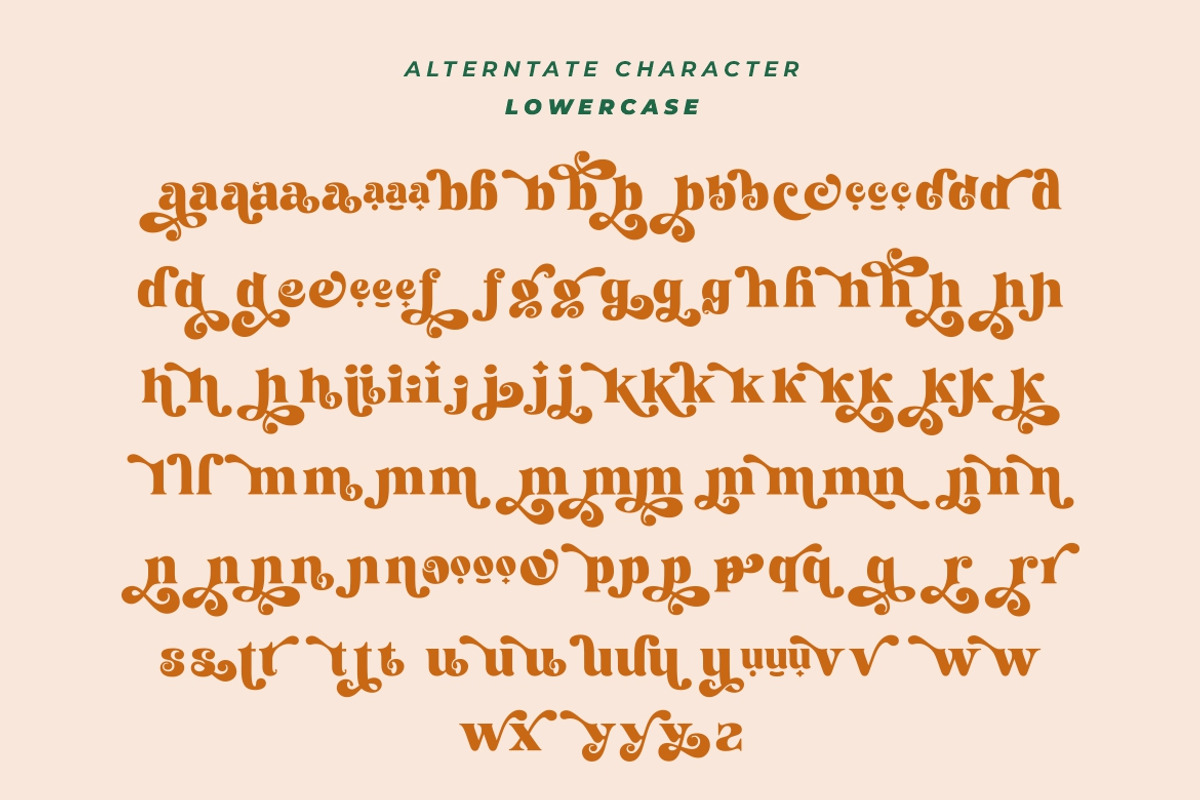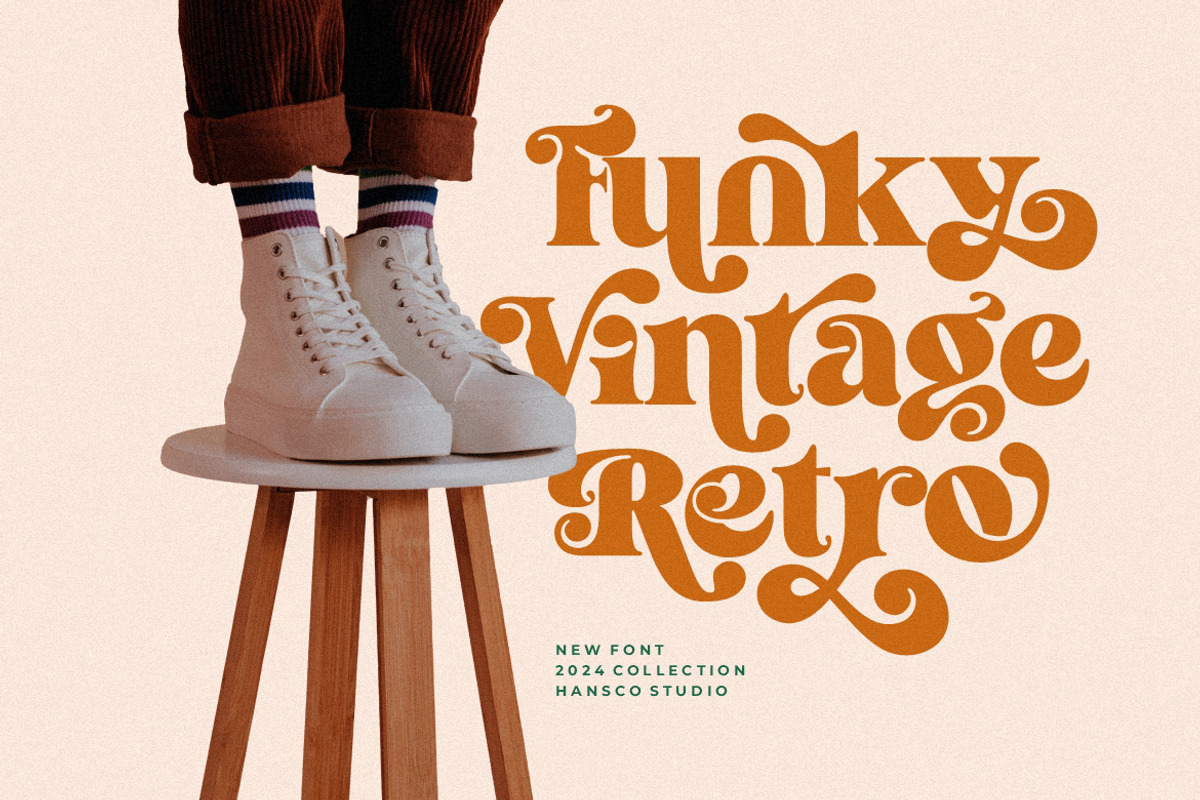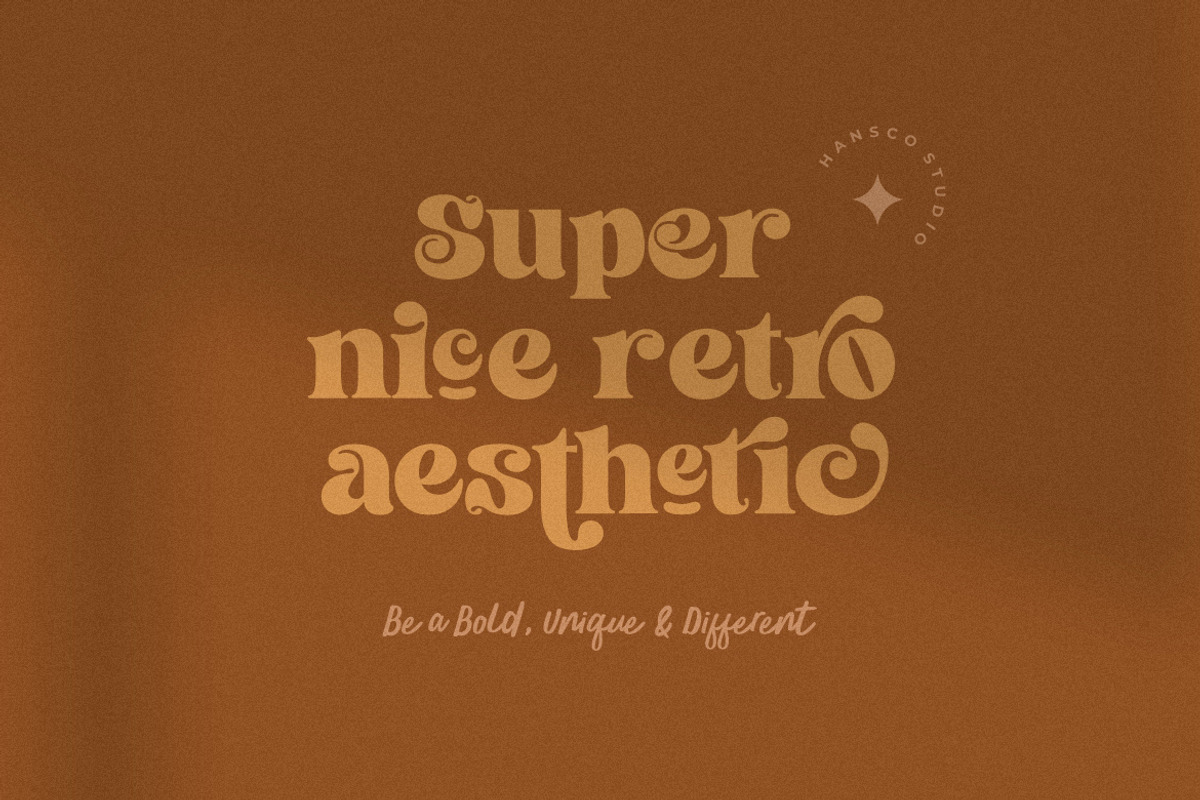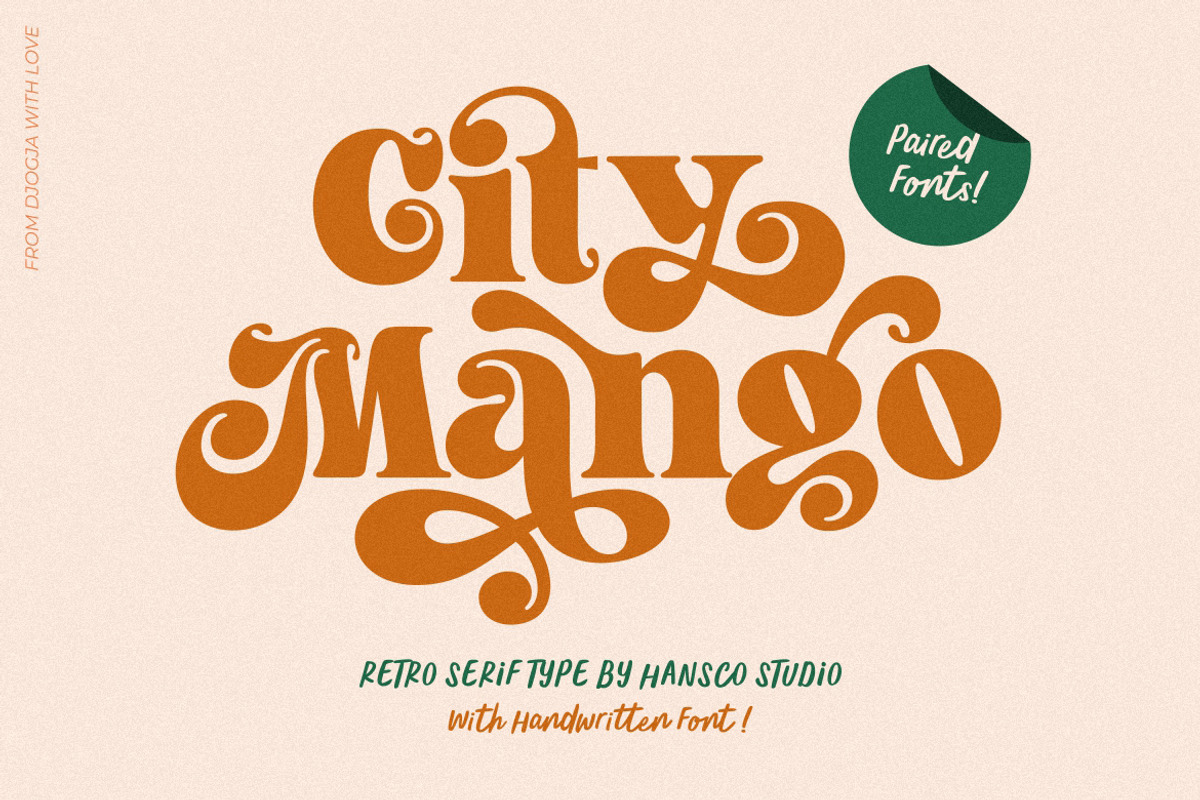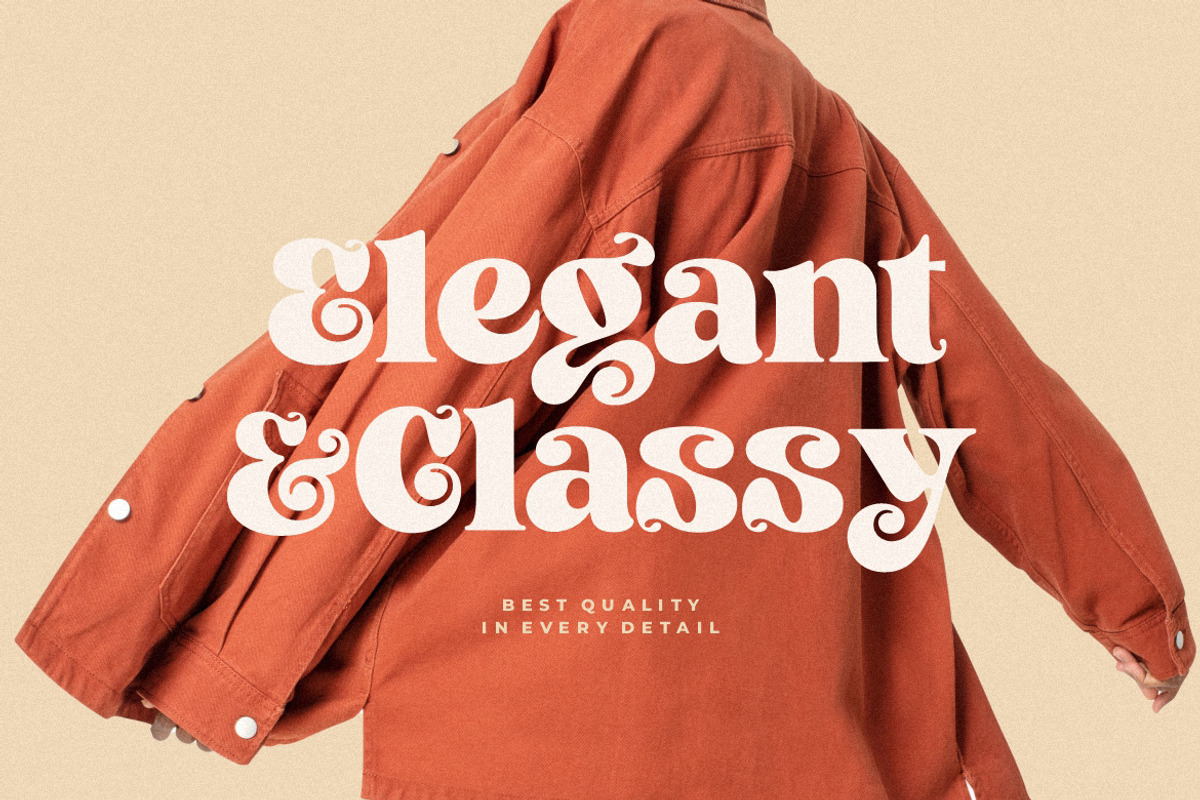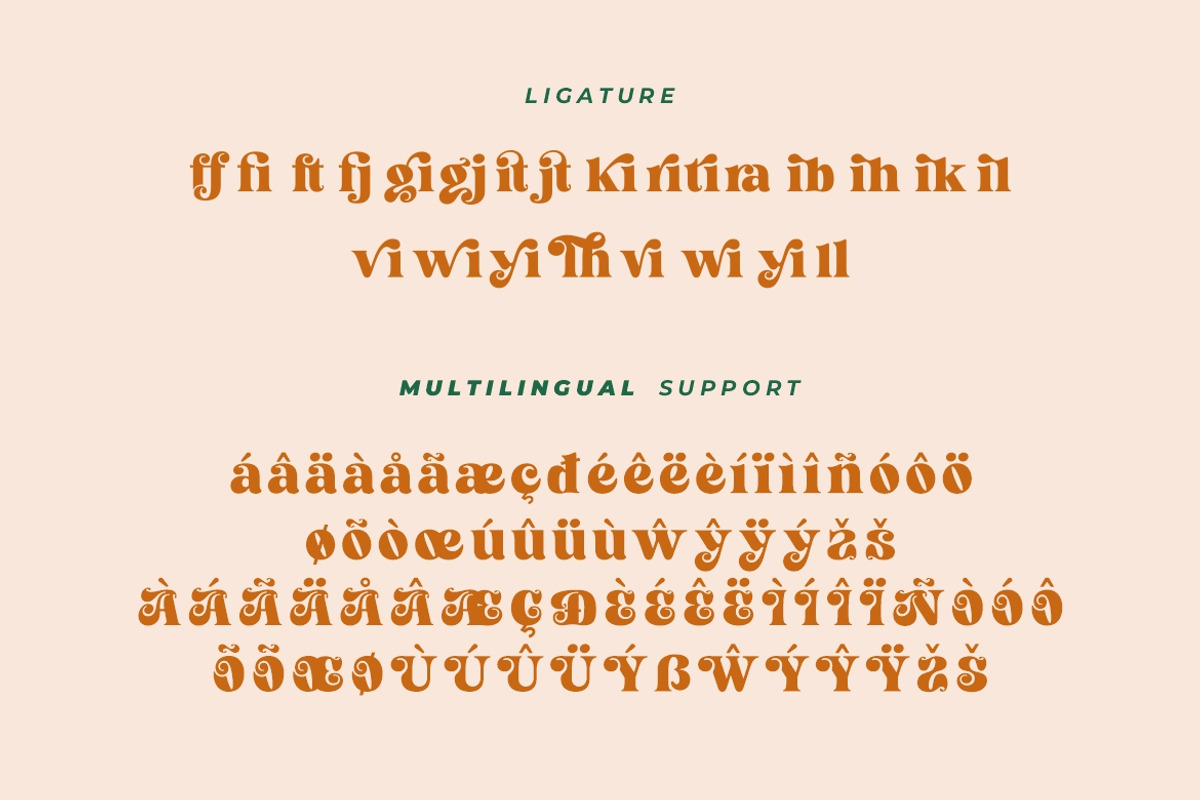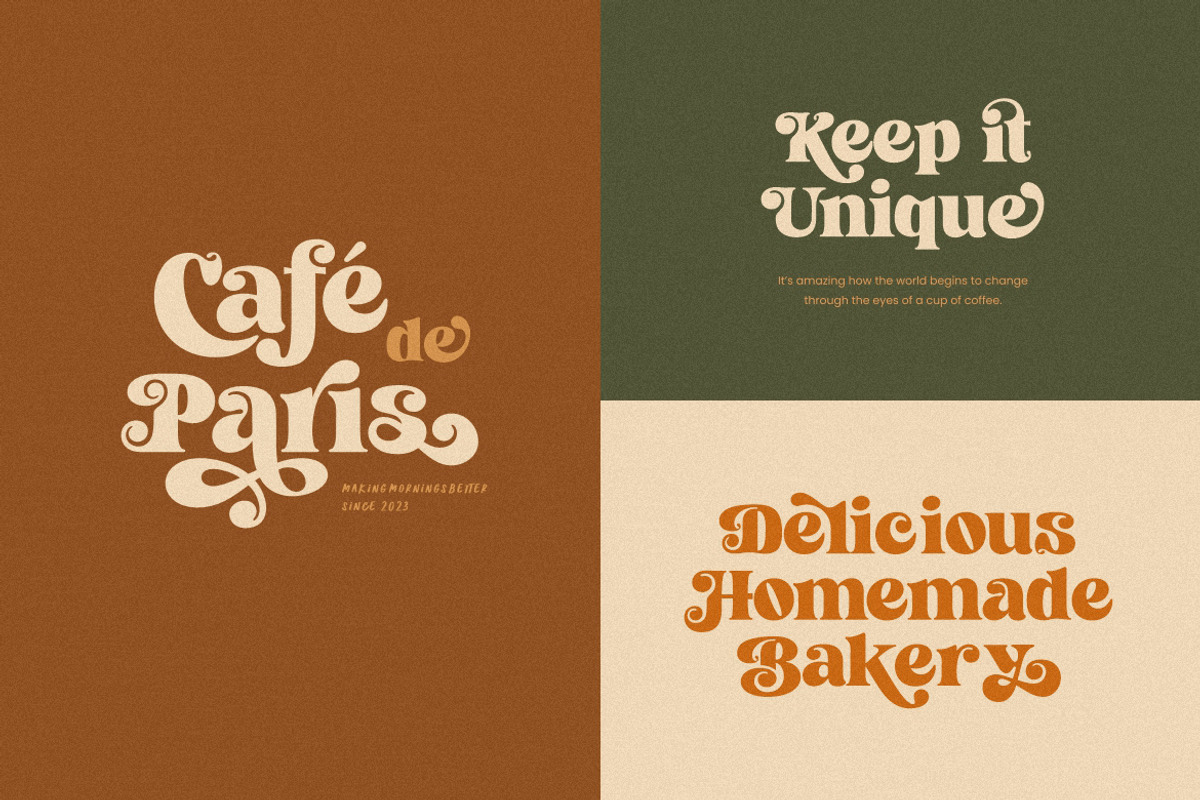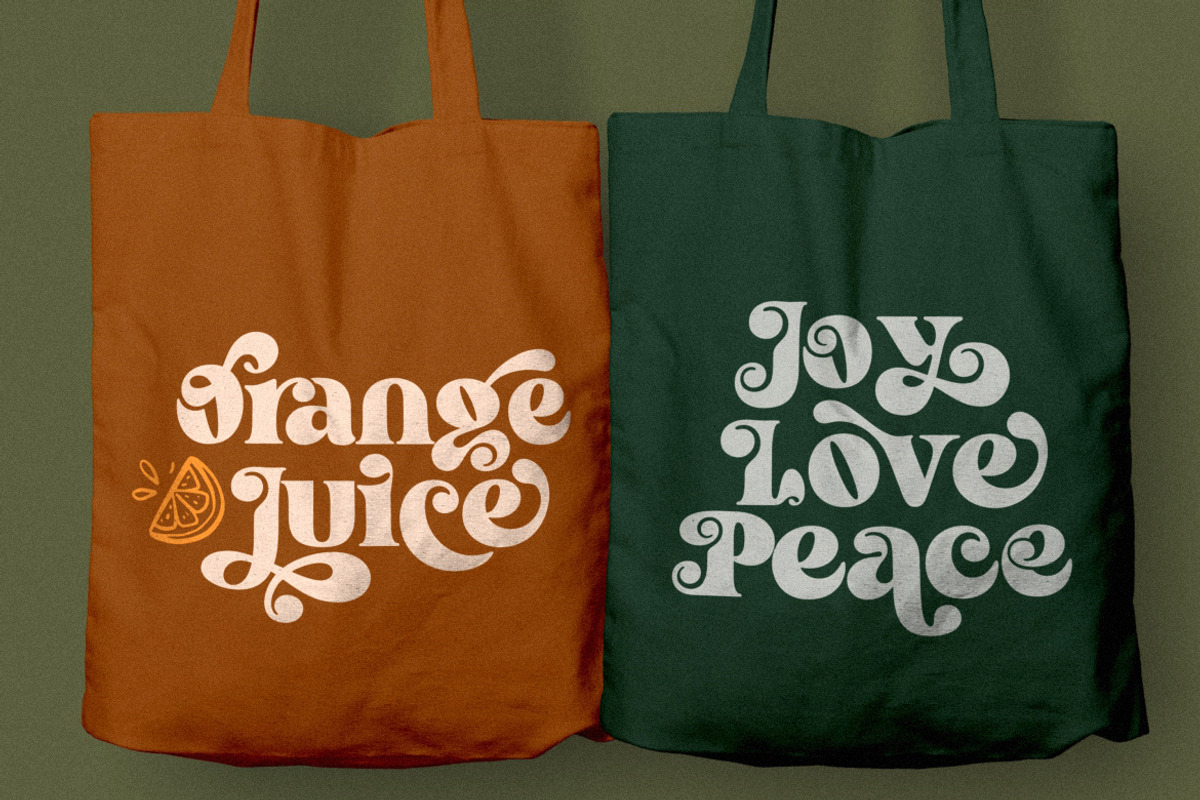
City Mango - Retro Serif Font
City Mango feels playfully nostalgic and delivers an incredible vintage aesthetic. Use this serif font to add that special retro touch to any design idea you can think of!
Masterfully designed to become a true favorite, this font has the potential to bring each of your creative ideas to the highest level!
- uppercase, lowercase
- alternates
- swashes